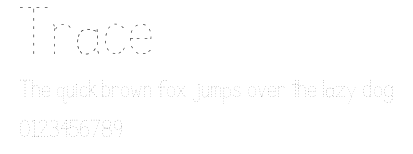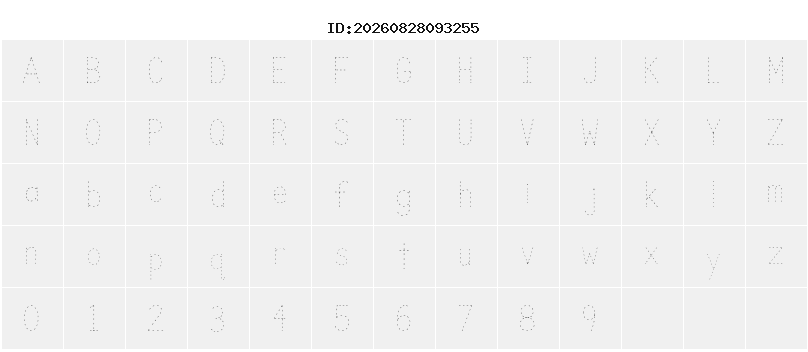
About Trace.ttf
Trace.ttf is a modern, elegant sans-serif font designed for ultimate readability and visual harmony. Perfect for branding, headlines, web design, and print materials.